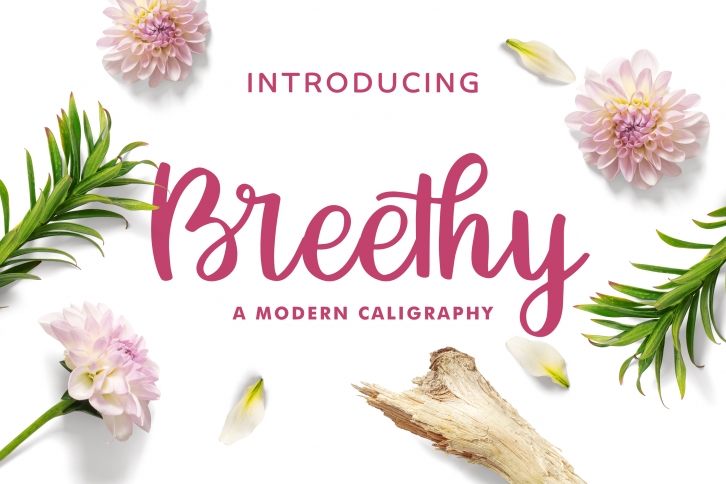
Breethy FONT Download
Breethy is a gorgeous font that was realeased on October 6, 2019. The font can be used in many style contexts and design environments. Perfect for invitations, magazines, websites, logos, and more! It was designed by Typestory and the file size is 21.96 MB. Thanks for checking out this font!